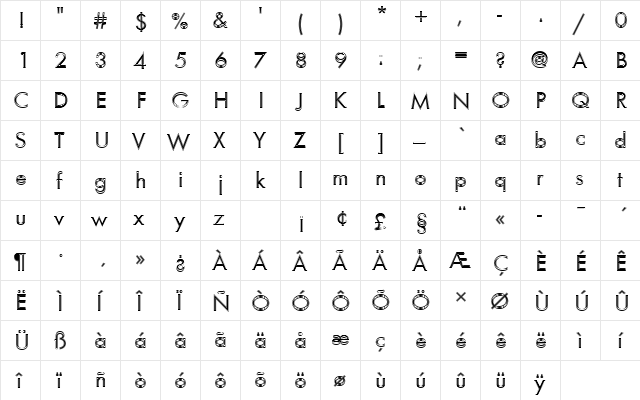
FuturaTBooIn1 Regular Font Preview
FuturaTBooIn1 Regular
Design Context for FuturaTBooIn1 Typeface
FuturaTBooIn1 has a distinctly futuristic character, with geometric precision and clean angles that feel at home in technology, gaming, and sci-fi contexts.